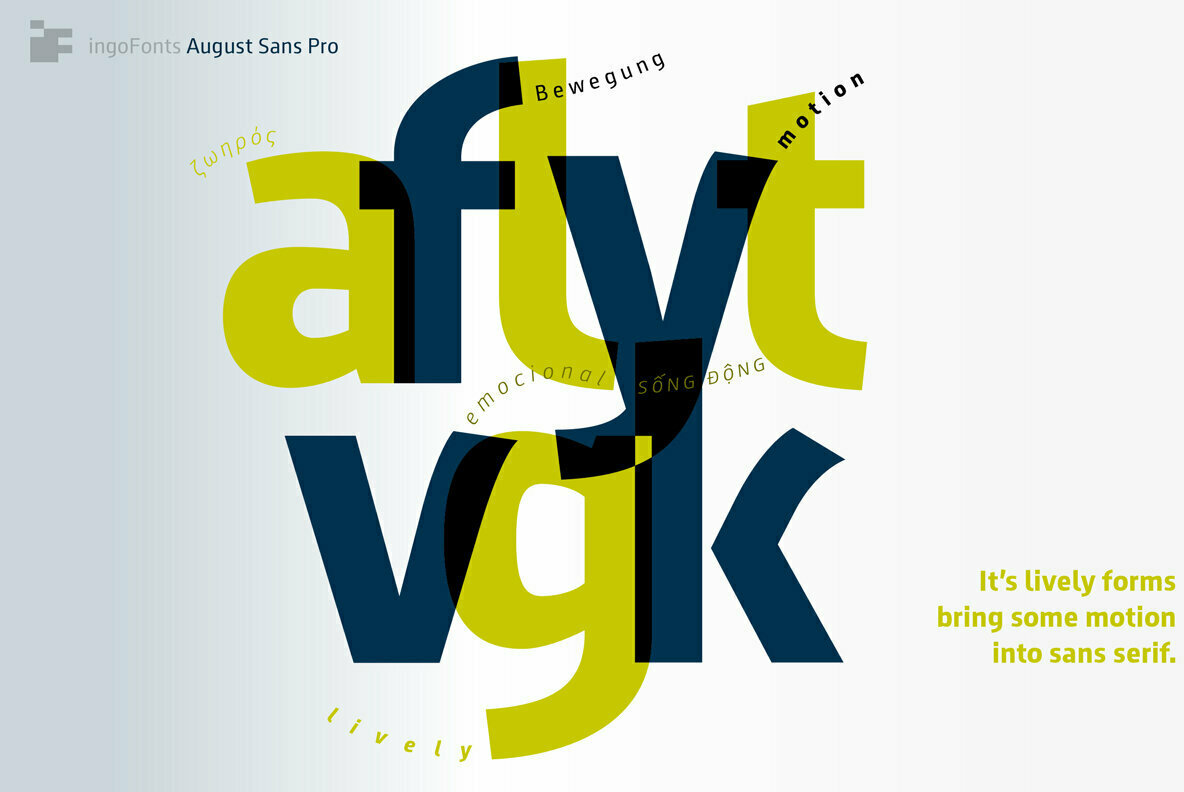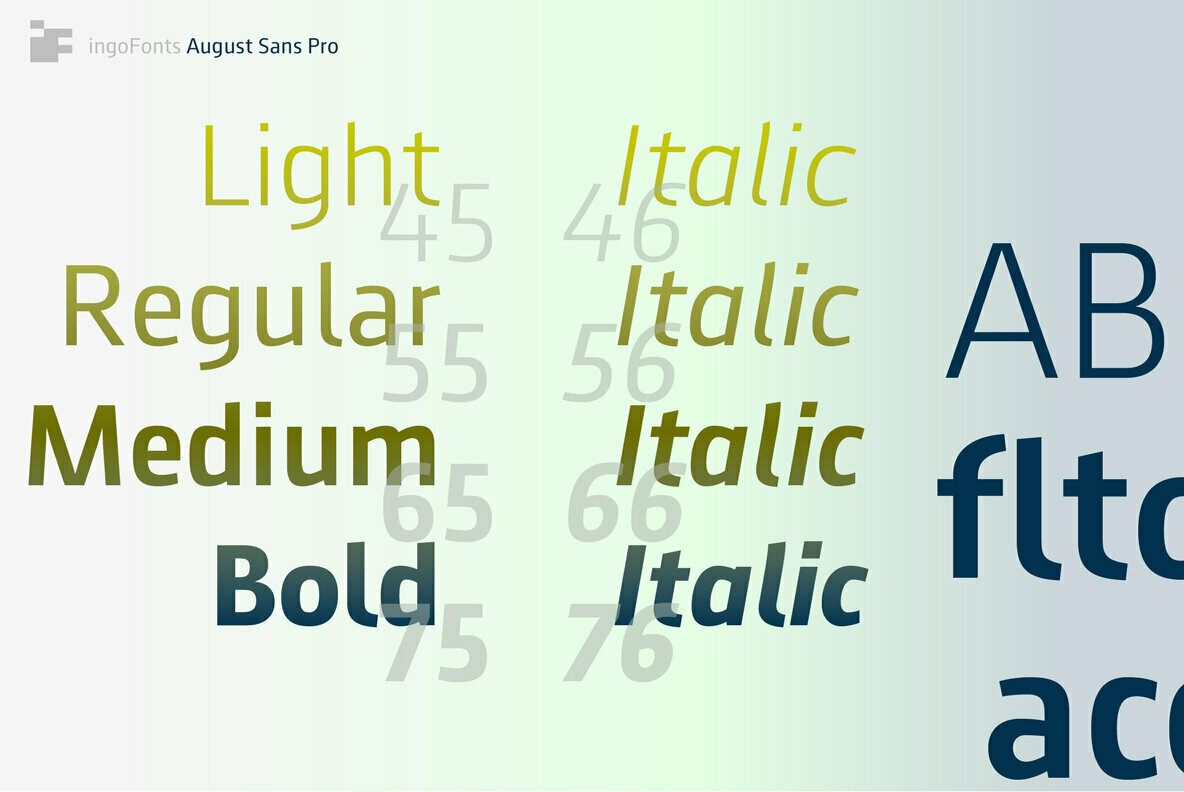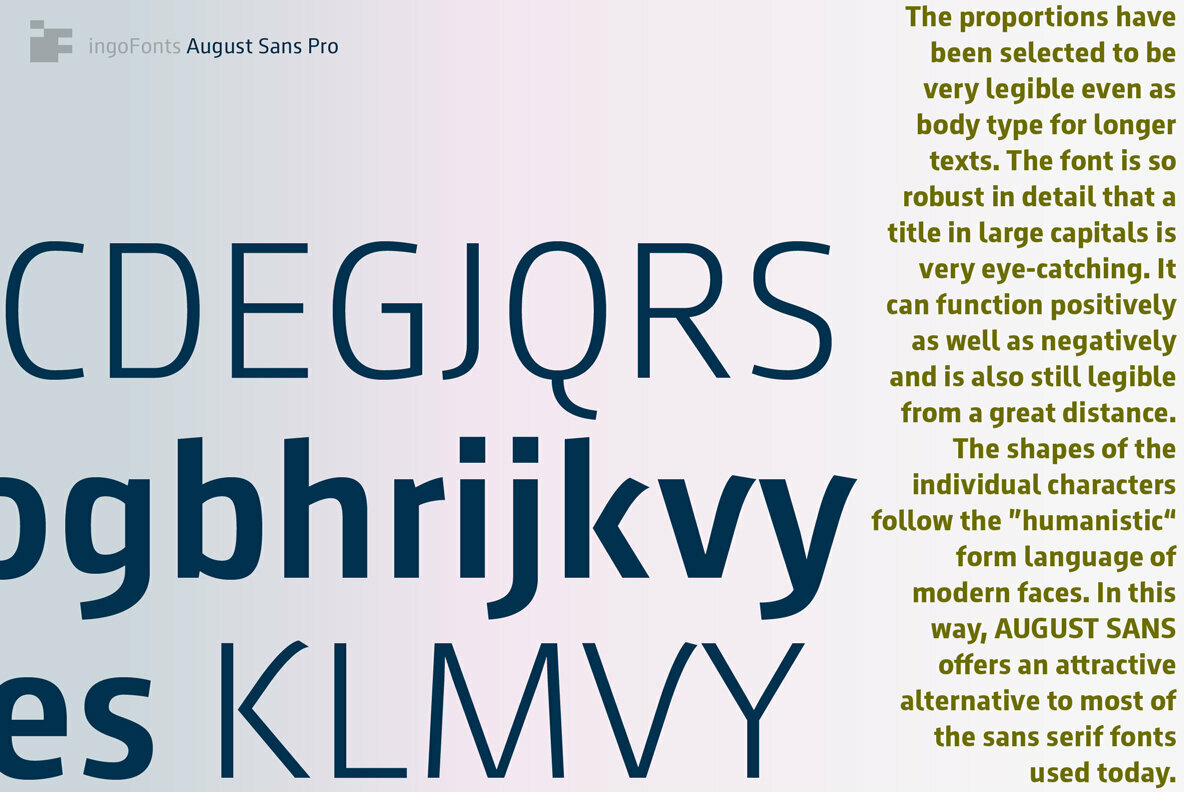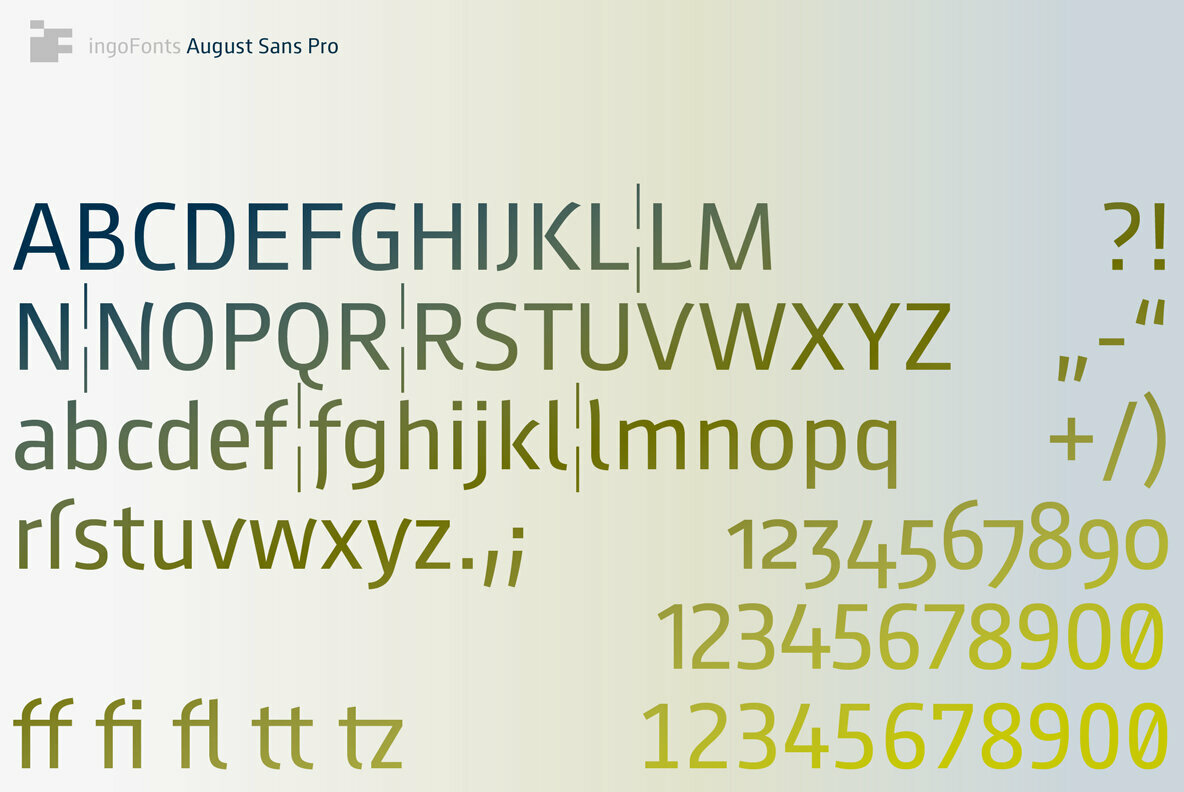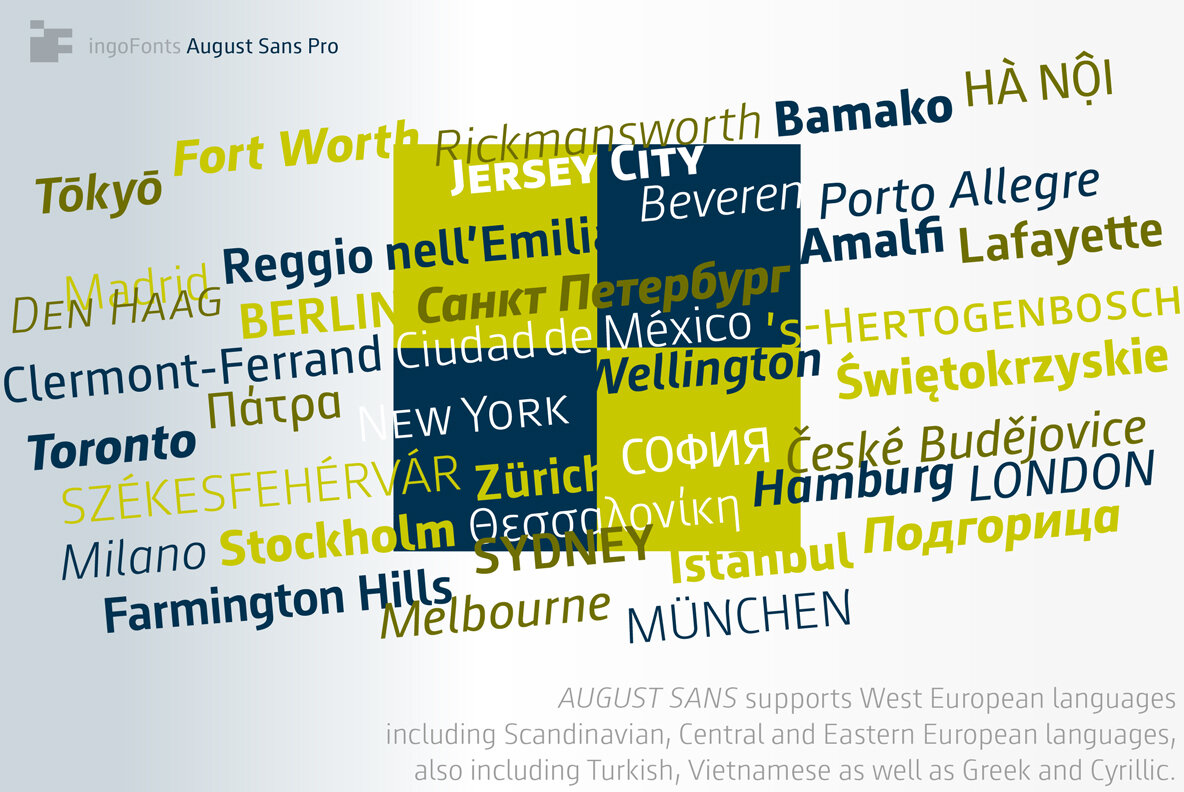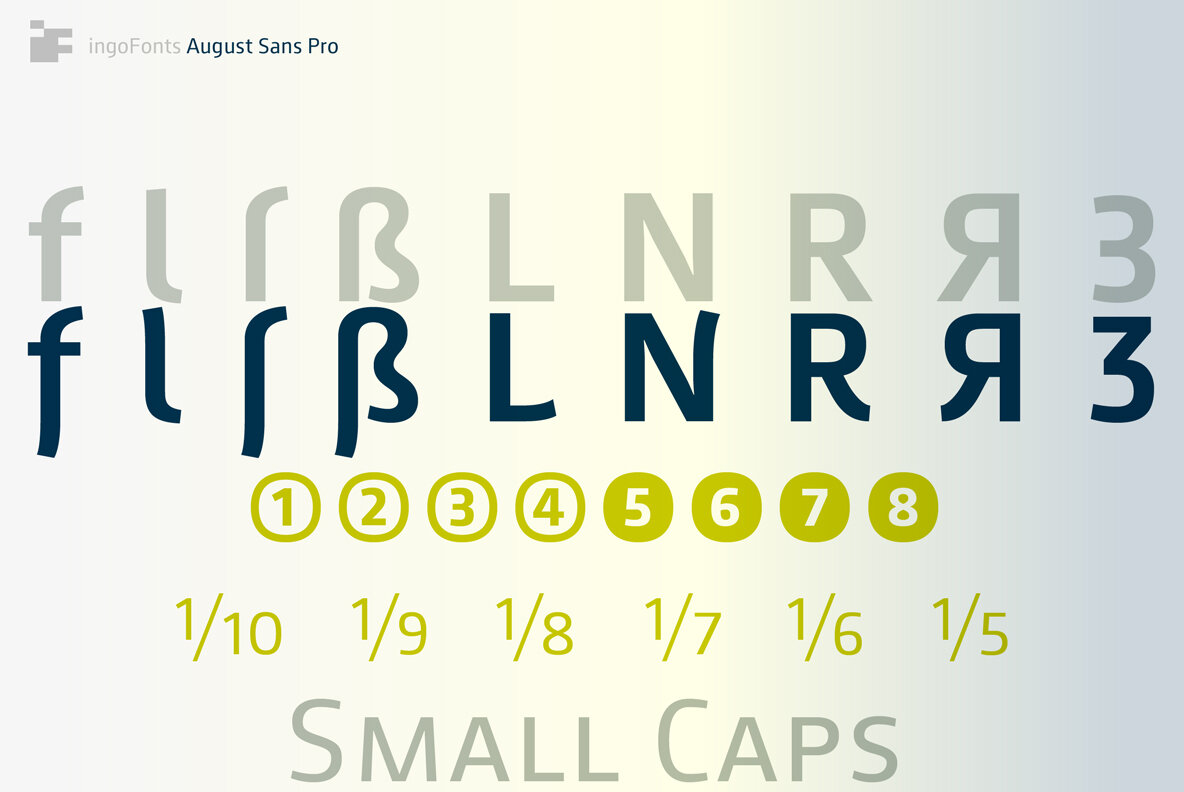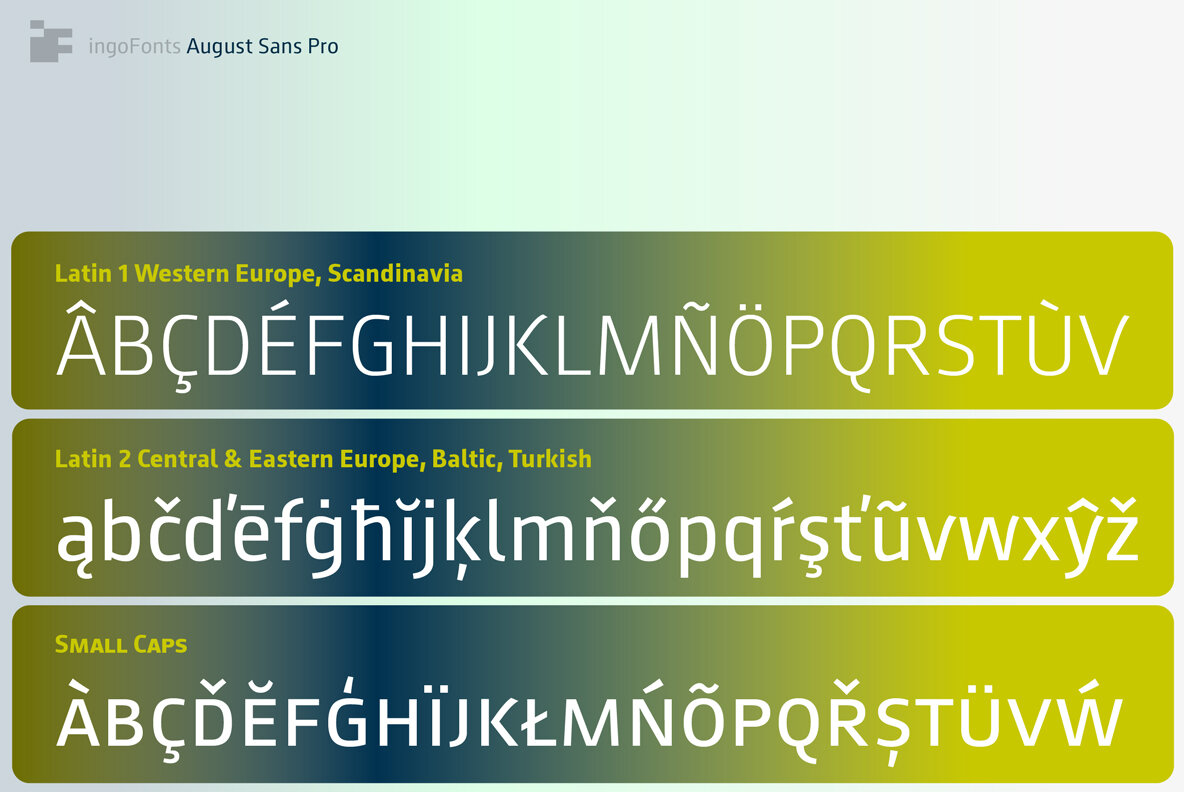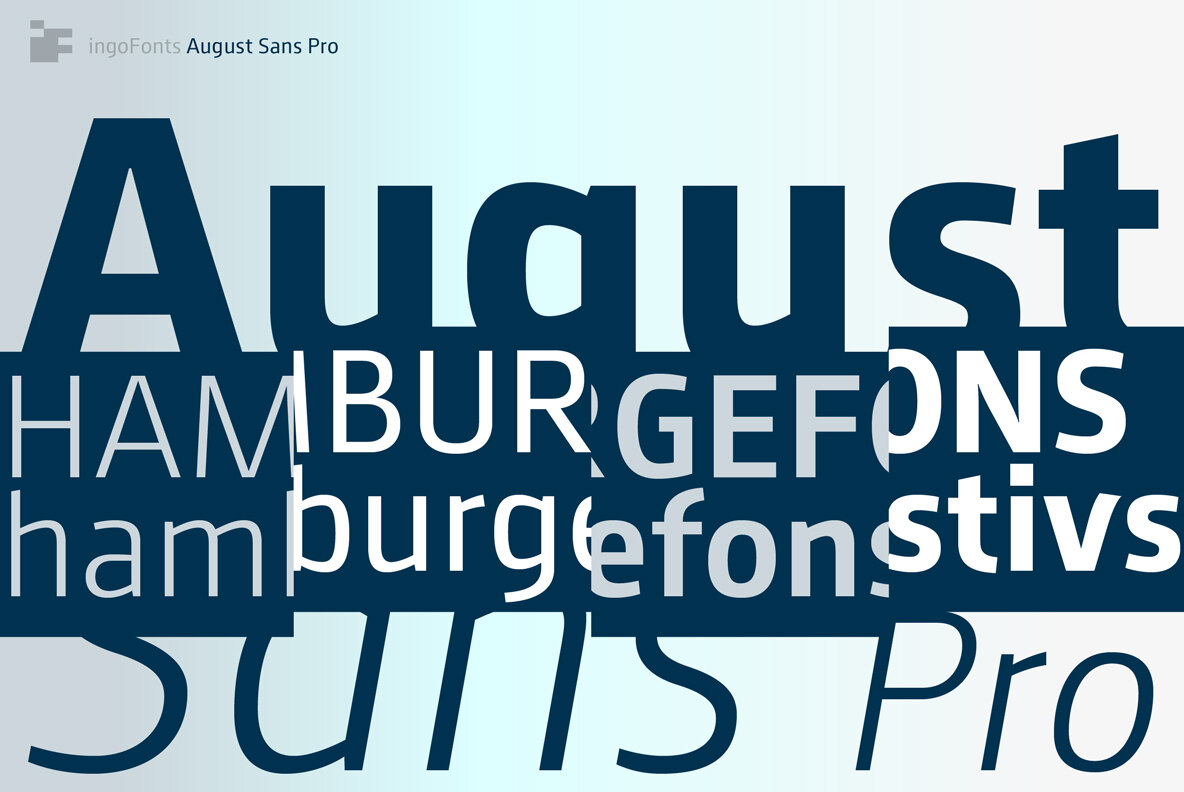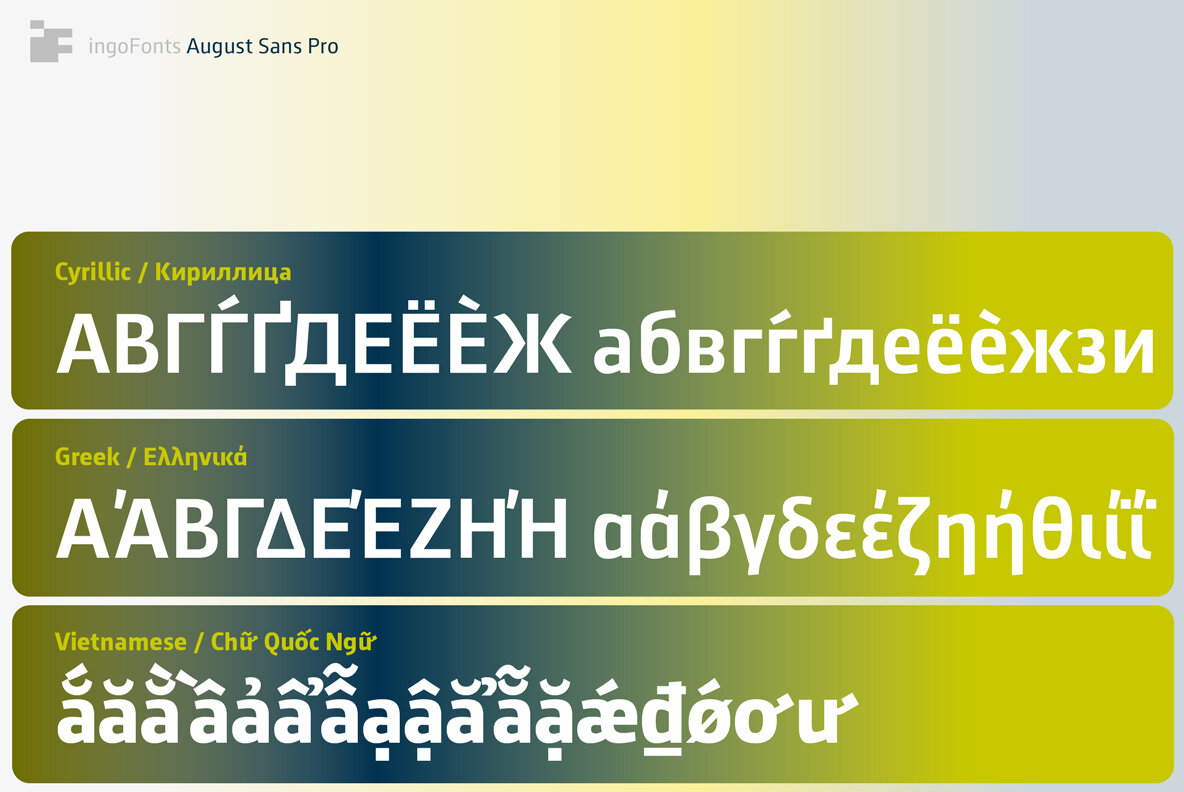
August Sans Pro Font
The August Sans Pro is businesslike-modern but at the same time present the effect of liveliness and movement.
The shapes of the individual characters follow the ”humanistic“ form language of modern faces. In this way, August Sans Pro offers an attractive alternative to most of the sans serif fonts used today.
The proportions have been selected to be very legible even as body type for longer texts. The font is so robust in detail that a title in large capitals is very eye-catching. It can function positively as well as negatively and is also still legible from a great distance.
August Sans Pro supports West European languages including Scandinavian, Central and Eastern European languages, also including Turkish, Vietnamese as well as Greek and Cyrillic.
Along with ligatures for the letter combinations fi, ff, fl, tt and tz the font also includes stylistic alternates for the German ”sharp s“ ß and the figure 3.
Additionally, August Sans Pro offers several sets of figures:
• proportional standard figures of equal height
• lining figures in height of the capitals
• proportional medieval figures with ascenders and descenders
• disproportional tabular figures of equal width
• superior and inferior scientific figures and numerators resp. denominators for fractions
• circled figures